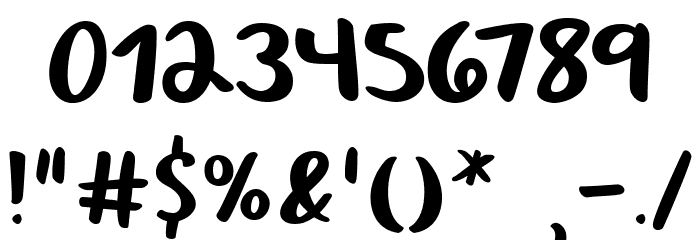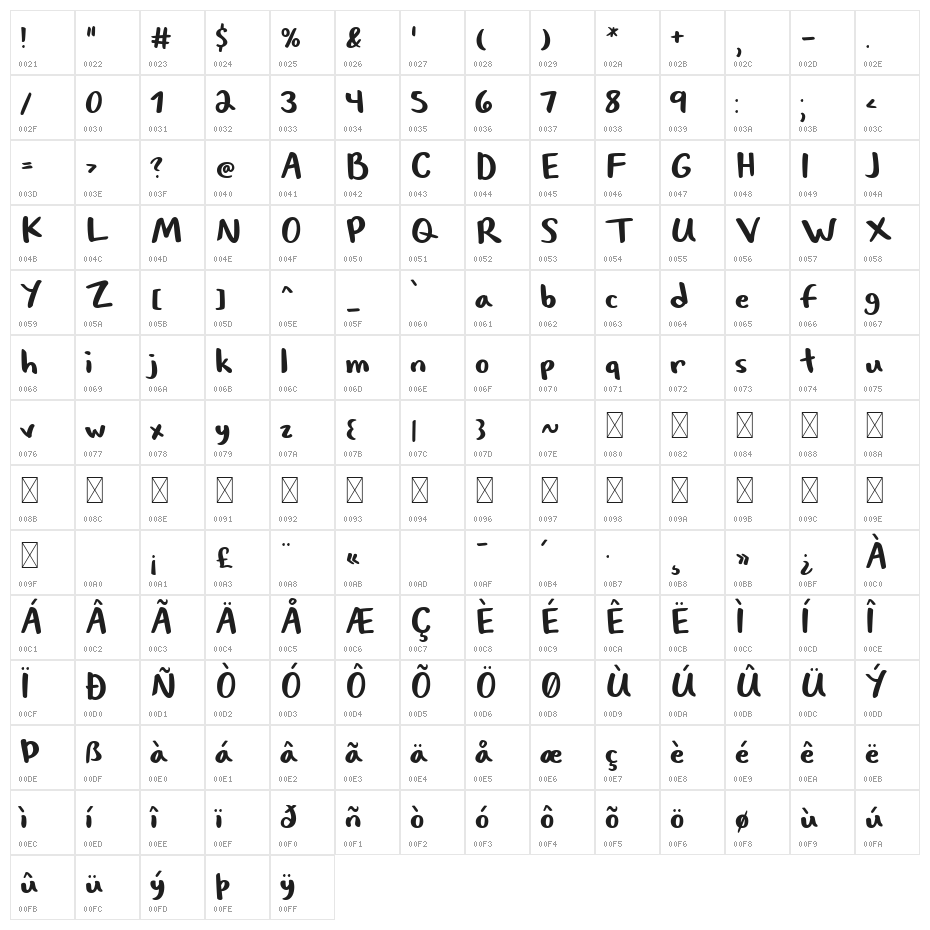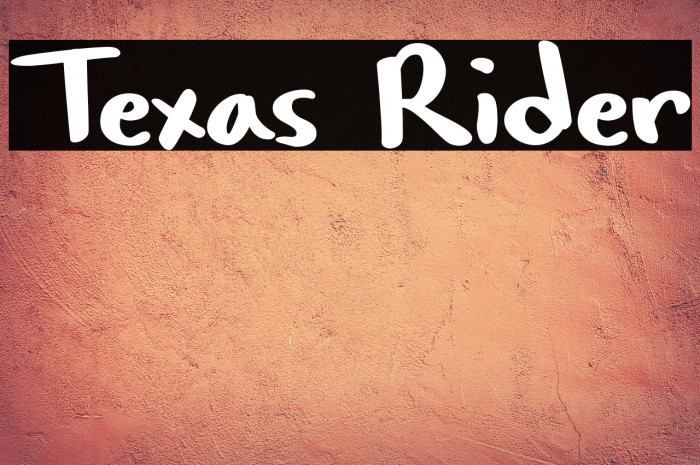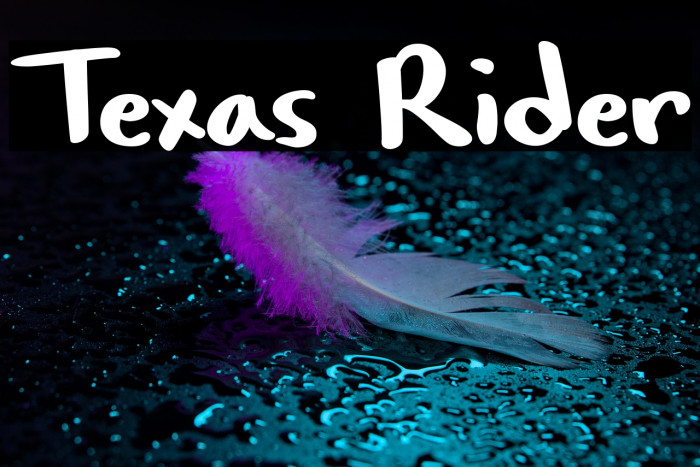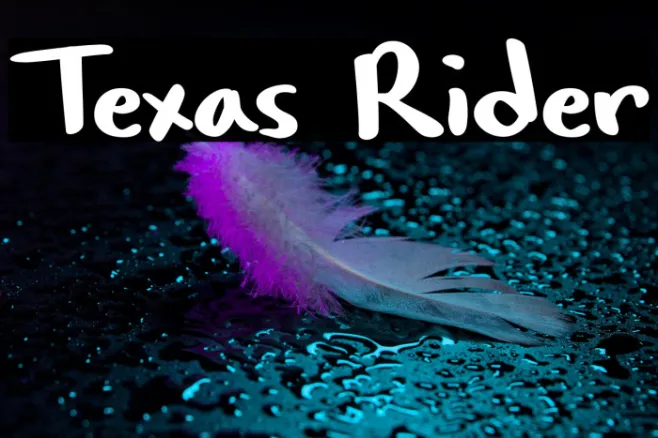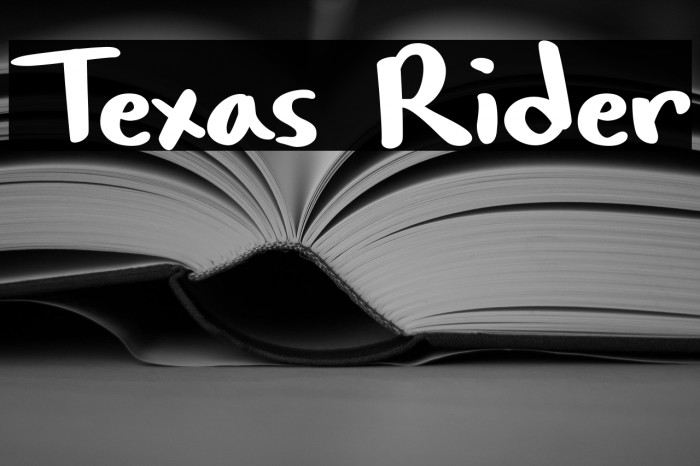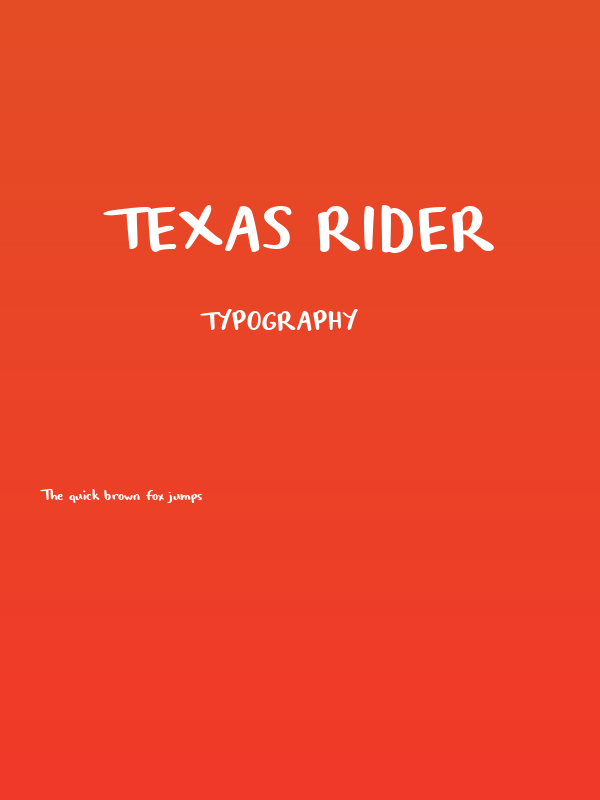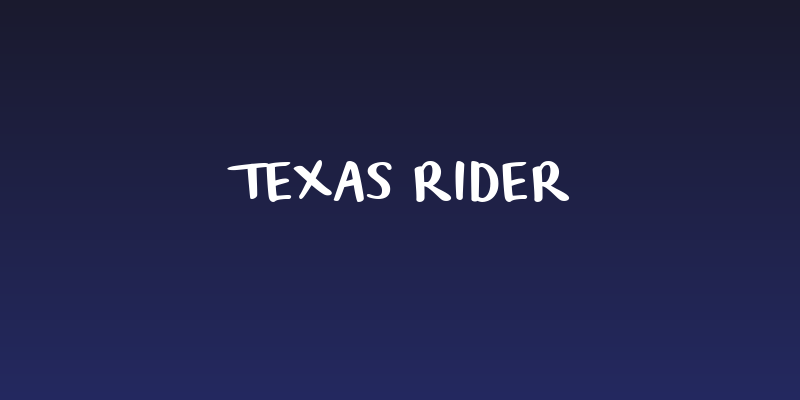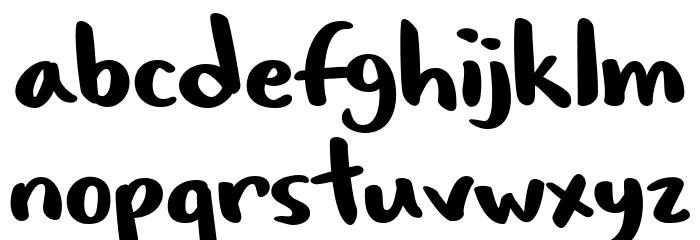
Texas Rider Font
Texas Rider Description
This font features a playful and casual handwritten style, characterized by its bold and rounded letterforms. The strokes are smooth and consistent, giving it a friendly and approachable appearance. The uppercase and lowercase letters maintain a uniform thickness, while the numerals and special characters blend seamlessly with the alphabet. The overall design is informal, making it suitable for projects that require a personal touch. Its legibility is enhanced by the clear distinction between characters, despite the playful curves and slight slant in some letters.
| Use Case | Headlines, Informal text, Branding |
| Proposed Projects | Ideal for greeting cards, children's books, casual branding, and social media graphics. |